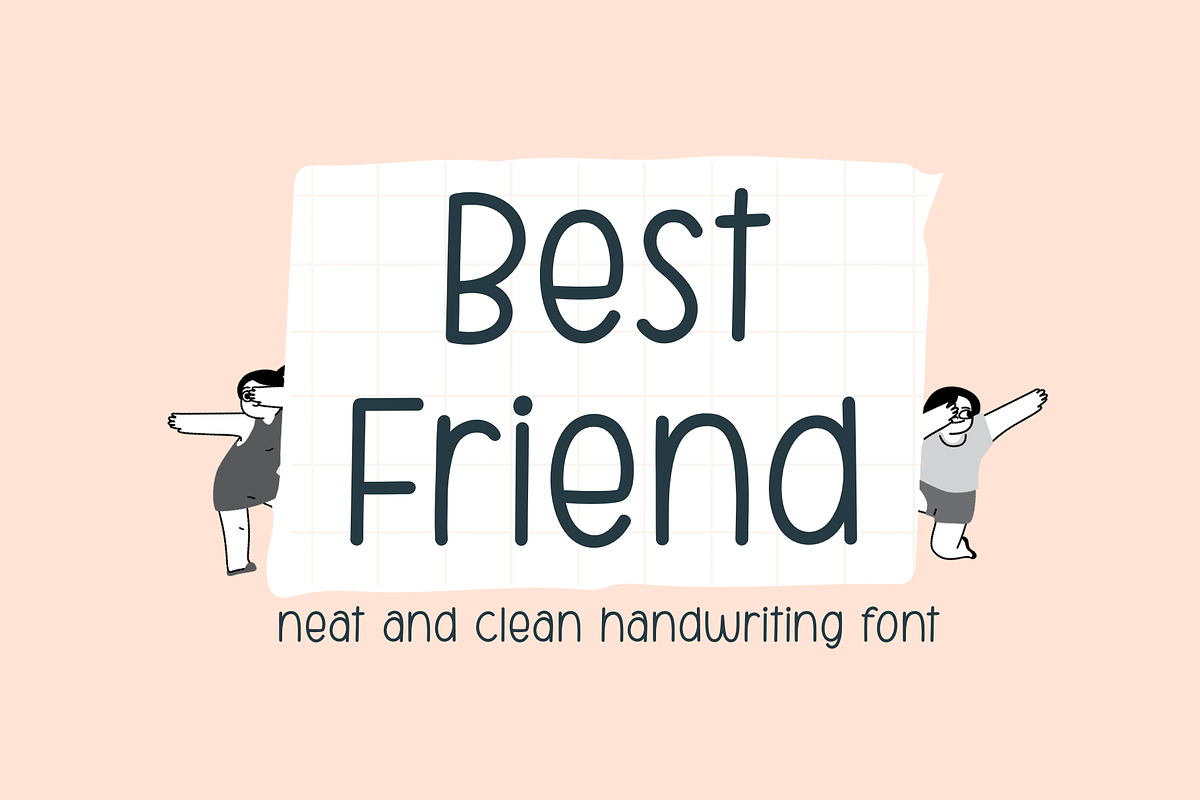
Best Friend clean handwriting font Free Download
Best Friend Clean Handwriting Font Free Download
Best Friend Clean Handwriting Font Free Download is a smooth, friendly typeface that captures the feel of casual, everyday handwriting. With clean strokes and a natural flow, this font is perfect for journals, greeting cards, social media posts, planners, blogs, and any design that calls for a personal, approachable touch.
Its legibility and warmth make it an ideal choice for both print and digital use. Whether you're creating lifestyle content or cozy branding, Best Friend adds a human element that feels genuine and effortless. You’re free to download and try it for personal use, but a license is required for all commercial or professional projects.
Bring warmth and authenticity to your designs with Best Friend Clean Handwriting Font Free Download and let your words come through with charm, clarity, and personality. It’s a must-have for any font library focused on heartfelt, handwritten style.